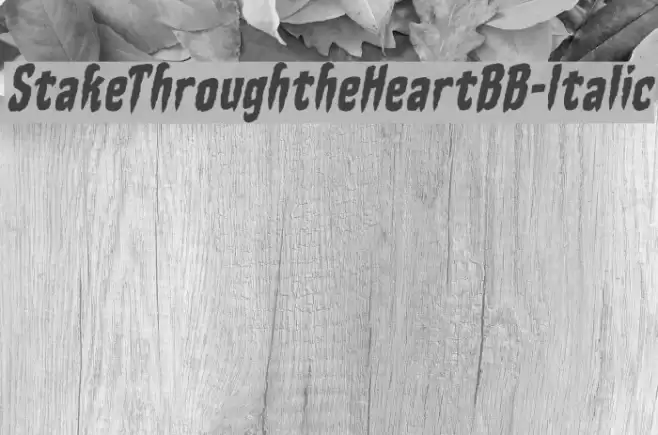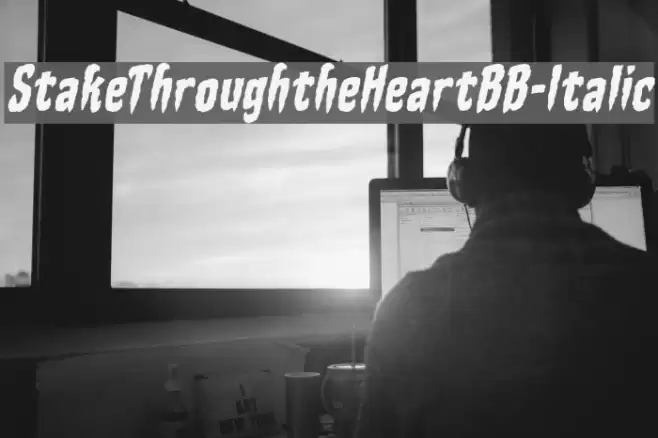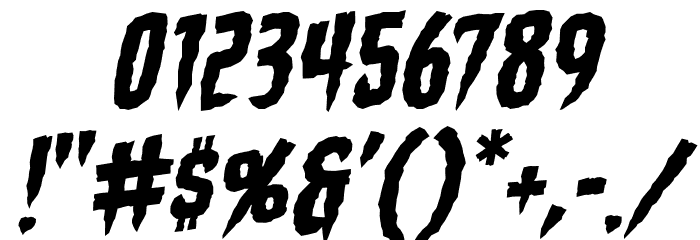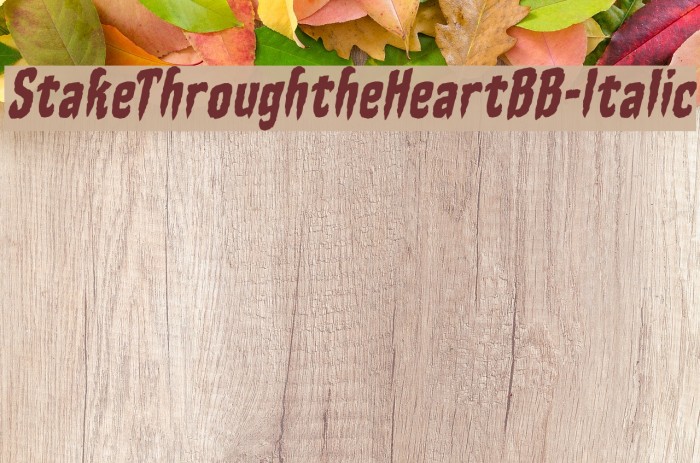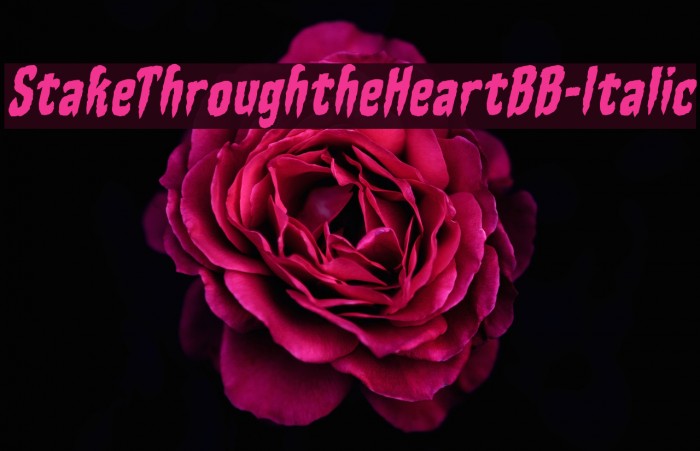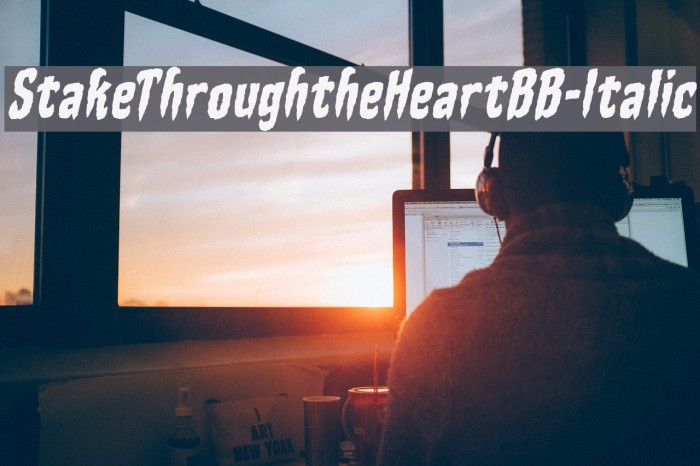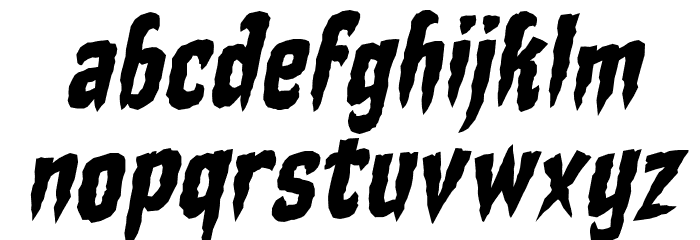
StakeThroughtheHeartBB-Italic Font
StakeThroughtheHeartBB-Italic Description
This font features a bold and jagged design, reminiscent of horror or thriller themes. The letters have a sharp, pointed appearance, giving them an edgy and dynamic look. The strokes are uneven, adding to the chaotic and intense feel of the typeface. It is italicized, enhancing the sense of movement and urgency. The font is highly decorative, making it suitable for attention-grabbing headlines or thematic designs. The numbers and special characters maintain the same sharp and dramatic style, ensuring consistency across all elements.
A bold, jagged, and italicized font with a horror-themed, edgy appearance from Uncategorized fonts.
- Proposed Projects: Ideal for horror movie posters, Halloween event flyers, themed party invitations, or any design requiring a dramatic and intense typeface.